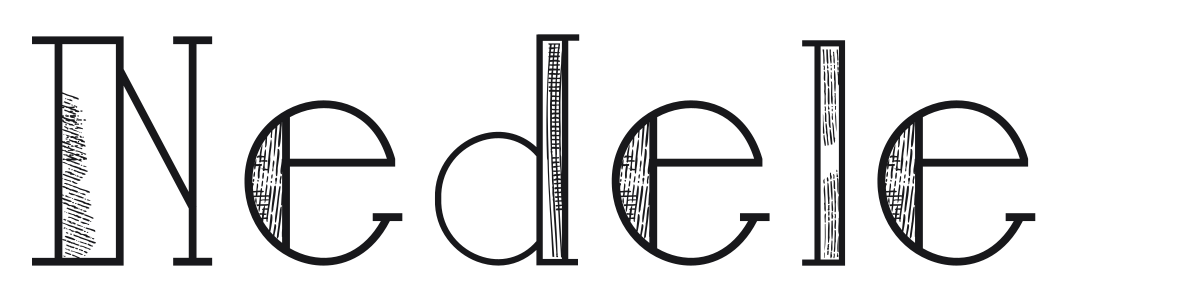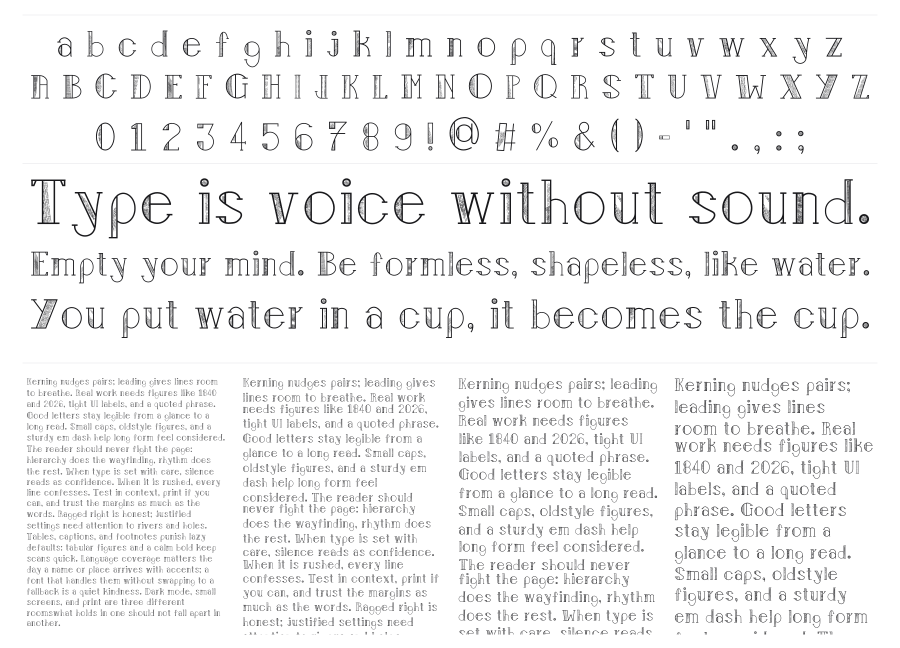
Nedele
by Evangelos Aidon
Nedale is a light serif display face with a fine crosshatch texture etched into its strokes, evoking 19th-century wood type and hand-engraved printing. The high contrast between hairline thins and moderate stems gives it a delicate, almost filigree quality at larger sizes. It suits boutique branding, artisan packaging, and editorial headlines where a vintage handcrafted sensibility is the point.